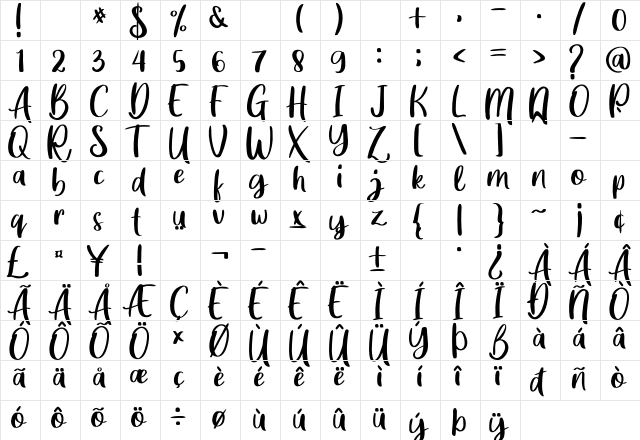
Great Wishes Regular
| Designer | Donis Miftahudin |
Design Context for Great Wishes Typeface
Great Wishes is a composed and adaptable typeface that performs quietly and consistently across a wide range of design contexts.